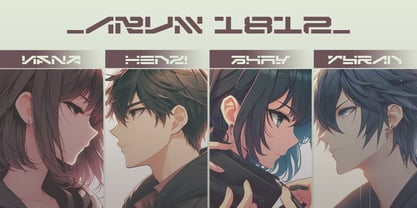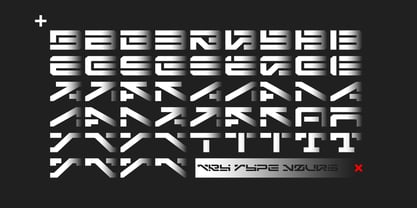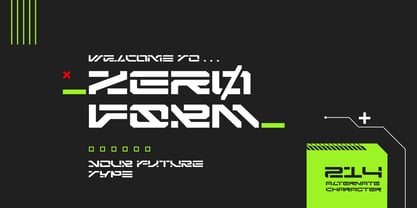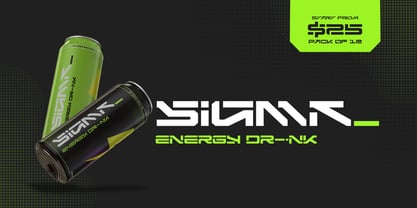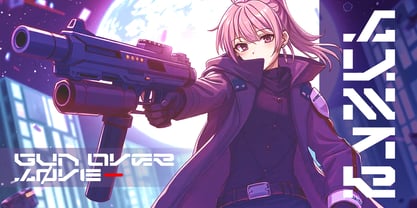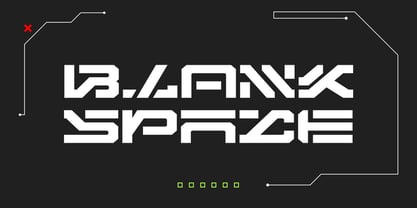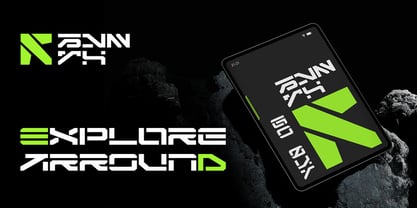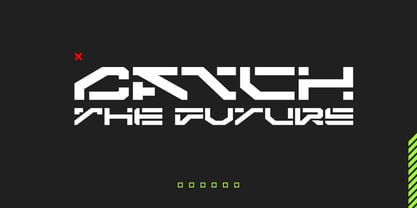
Zero Form
The Zero Form Font Family was designed by Ryan Prasetya and published by Lostvoltype. Zero Form contains 1 styles.
Zero Form is a futuristic typeface designed to evoke the feeling of cutting-edge technology and innovation. Its firm, straight lines create a sense of stability and precision. The font is constructed with a high-tech feel, perfect for sci-fi concepts, digital branding, and futuristic design projects.
Additionally, Zero Form includes 214 alternate characters, providing a vast array of options for customizing your design. These alternatives will give you the flexibility to create visually striking compositions that remain firmly grounded in a futuristic theme.